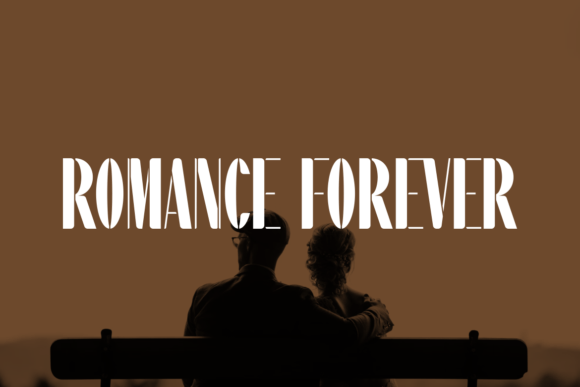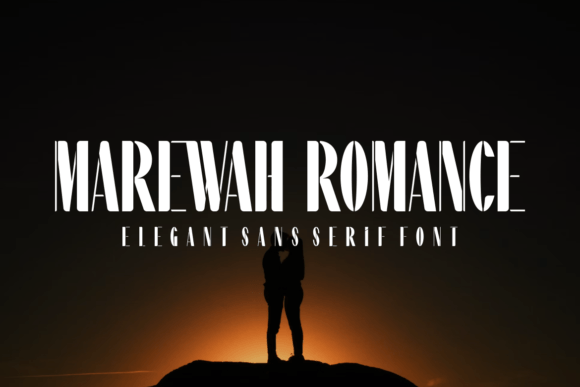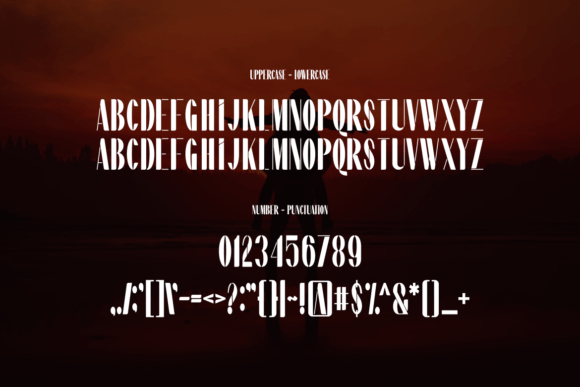
Introduction to Marewah Romance Font
Have you ever been captivated by the perfect font that elevates your creative project from ordinary to extraordinary? For many designers, finding that special font can be a game-changer. It’s the moment when everything comes together – the design, the message, and the emotions – and you know you’ve created something truly special.
For those seeking to make bold statements and create eye-catching titles, the Marewah Romance Font is an exceptional choice. Its elegant design makes it perfect for special occasions, from weddings to anniversaries, and everything in between. As a valuable design resource, Marewah Romance Font offers a high-quality, free download option that’s perfect for designers looking to add a touch of sophistication to their projects.
With its transparent background and versatile design, Marewah Romance Font is an ideal choice for designers who want to add a personal touch to their creative projects. Whether you’re working on a design project, creating a wedding invitation, or simply want to add a romantic touch to your social media posts, this font is sure to impress.
Key Features of Marewah Romance Font
- Unique, elegant, and romantic design, perfect for wedding invitations, love quotes, and other creative projects
Honest Review: Marewah Romance Font
I recently came across the Marewah Romance Font while searching for a design resource to enhance my creative project. I was excited to give it a try, and overall, I’m pleased with my experience.
- ✨ The font has a high-quality design that exudes a romantic and elegant feel.
- ✨ It comes with a transparent background, making it easy to use with various design elements.
- ⚠️ The font selection is limited to a single style, which may not be suitable for more complex designs.
- ⚠️ Some users may find the font’s aesthetic too ornate or over-the-top for their taste.
Overall, I’d say the Marewah Romance Font is a great choice for designers looking for a high-quality, free design resource. While it may not be perfect, its strengths make it a valuable addition to any creative project.
How to Use Marewah Romance Font
The Marewah Romance Font is a high-quality design resource that can elevate any creative project. With its beautiful, elegant style and transparent background, it’s perfect for a variety of applications.
Tips for Getting the Most Out of the Font
To get the most out of the Marewah Romance Font, experiment with different font sizes, colors, and combinations. You can also use it in conjunction with other design elements to create a unique look.
The Marewah Romance Font is perfect for a variety of creative projects, including:
- Valentine’s Day cards and gifts
- Anniversary and birthday celebrations
- Wedding and event decorations
Alternatives to Marewah Romance Font